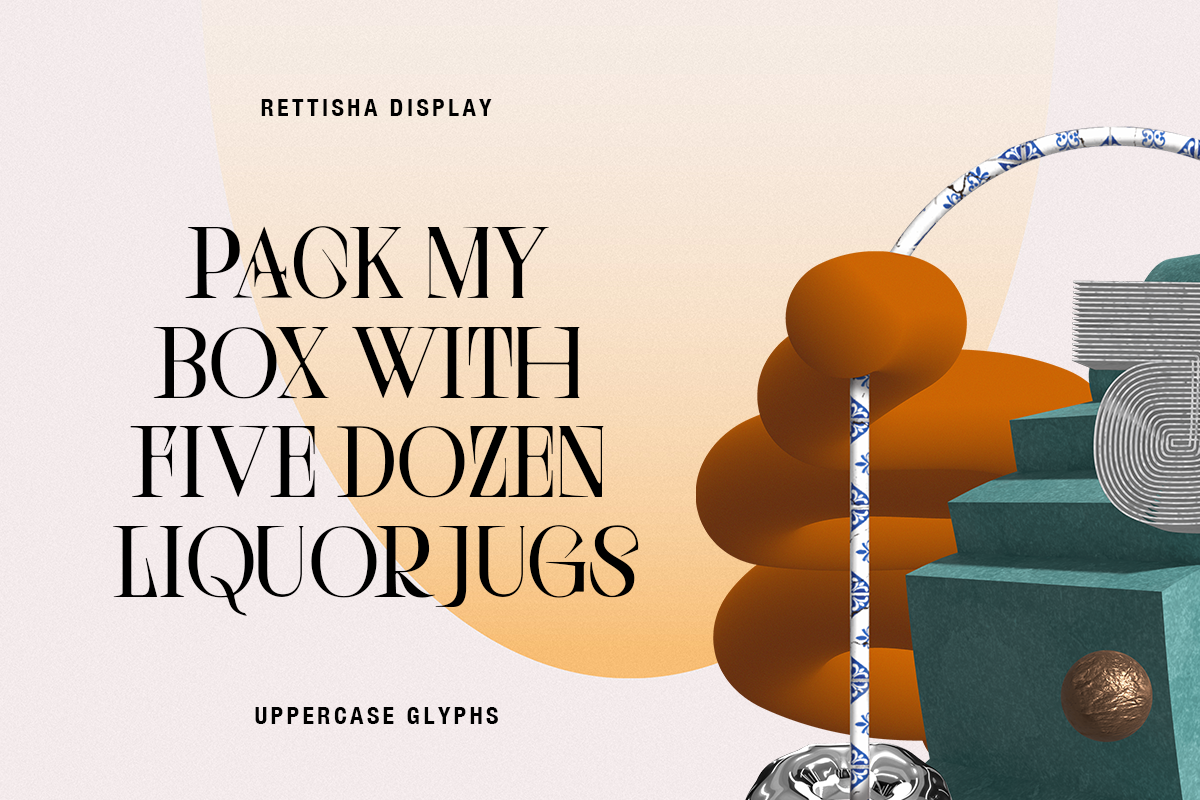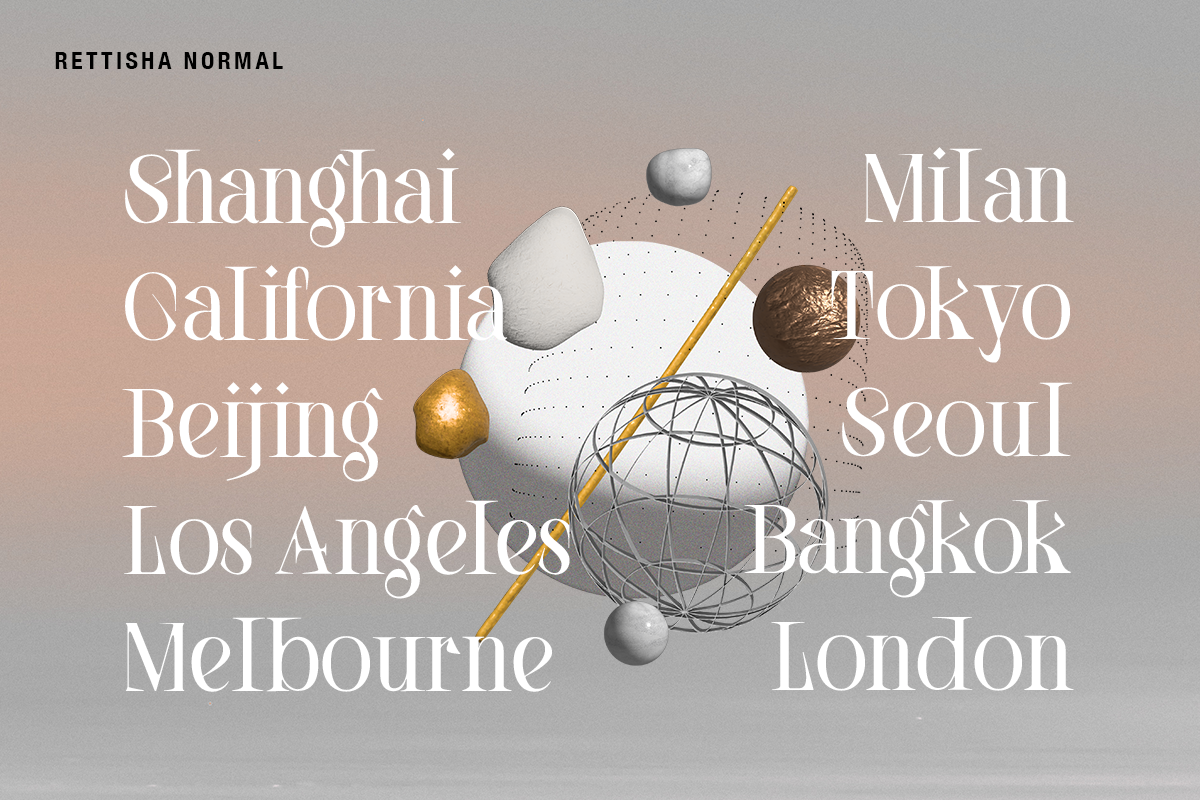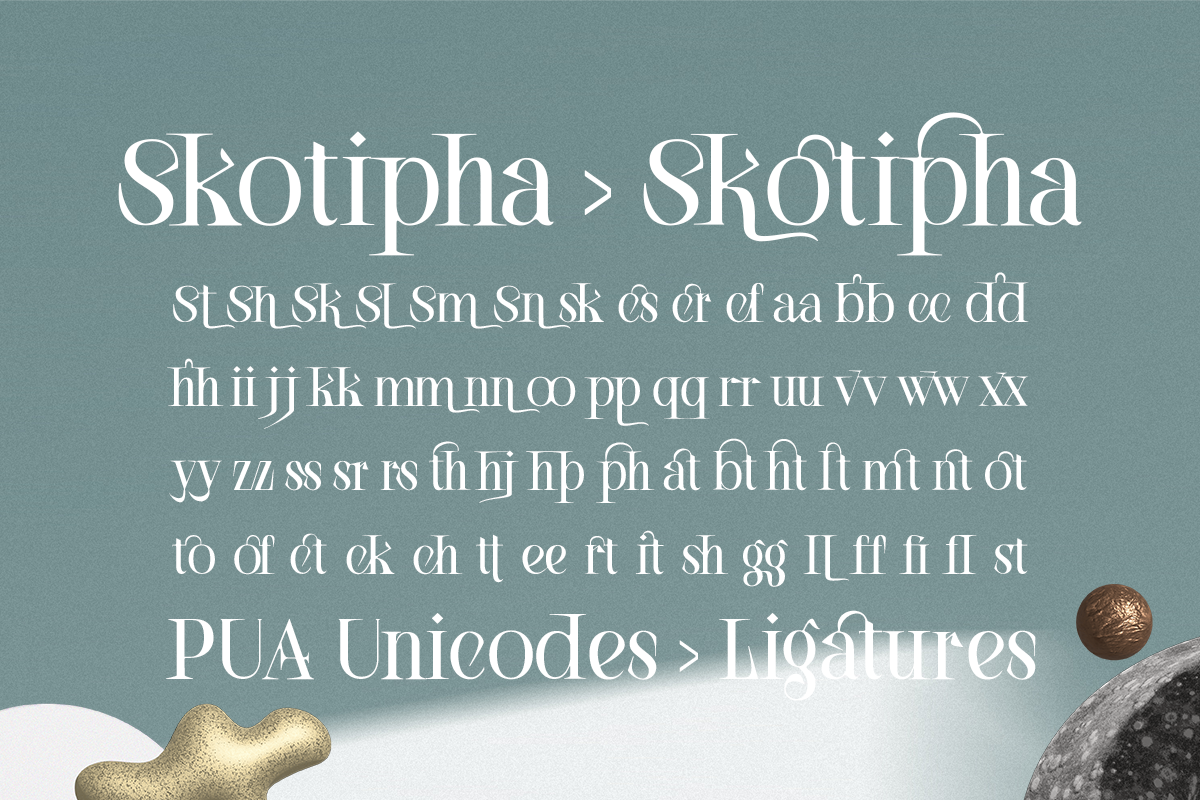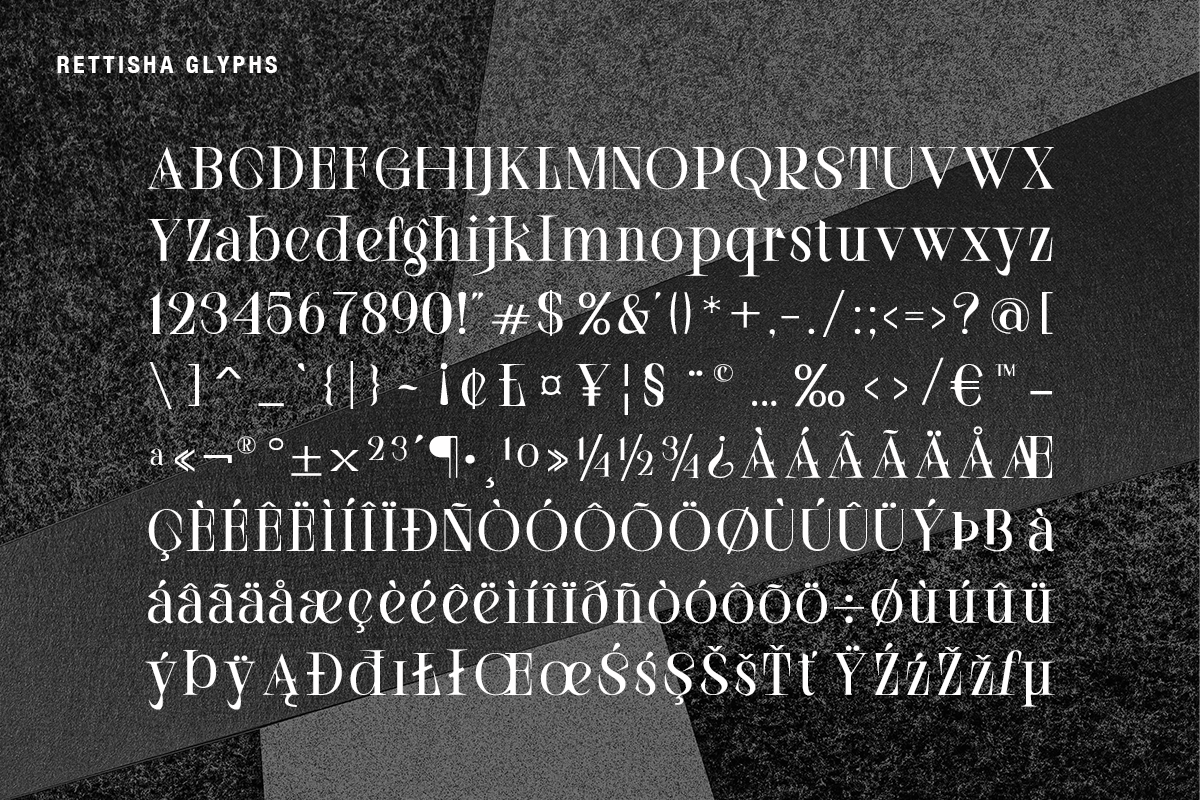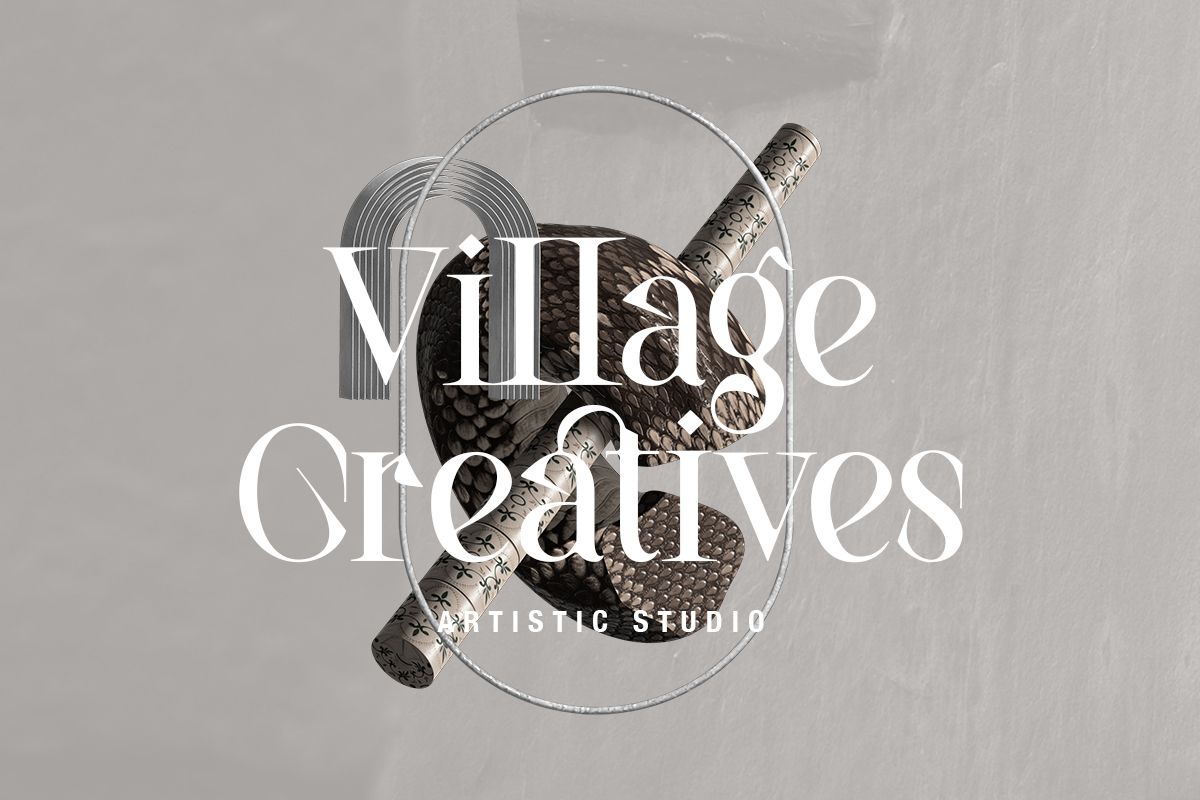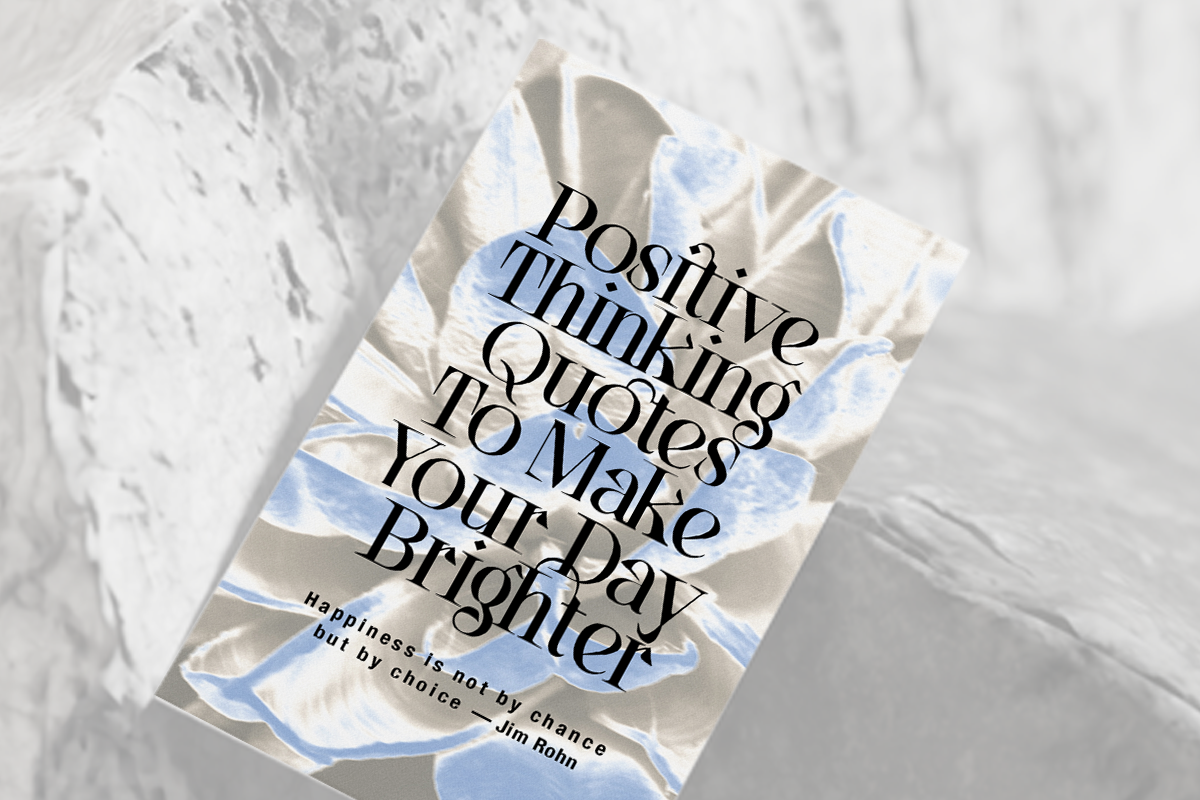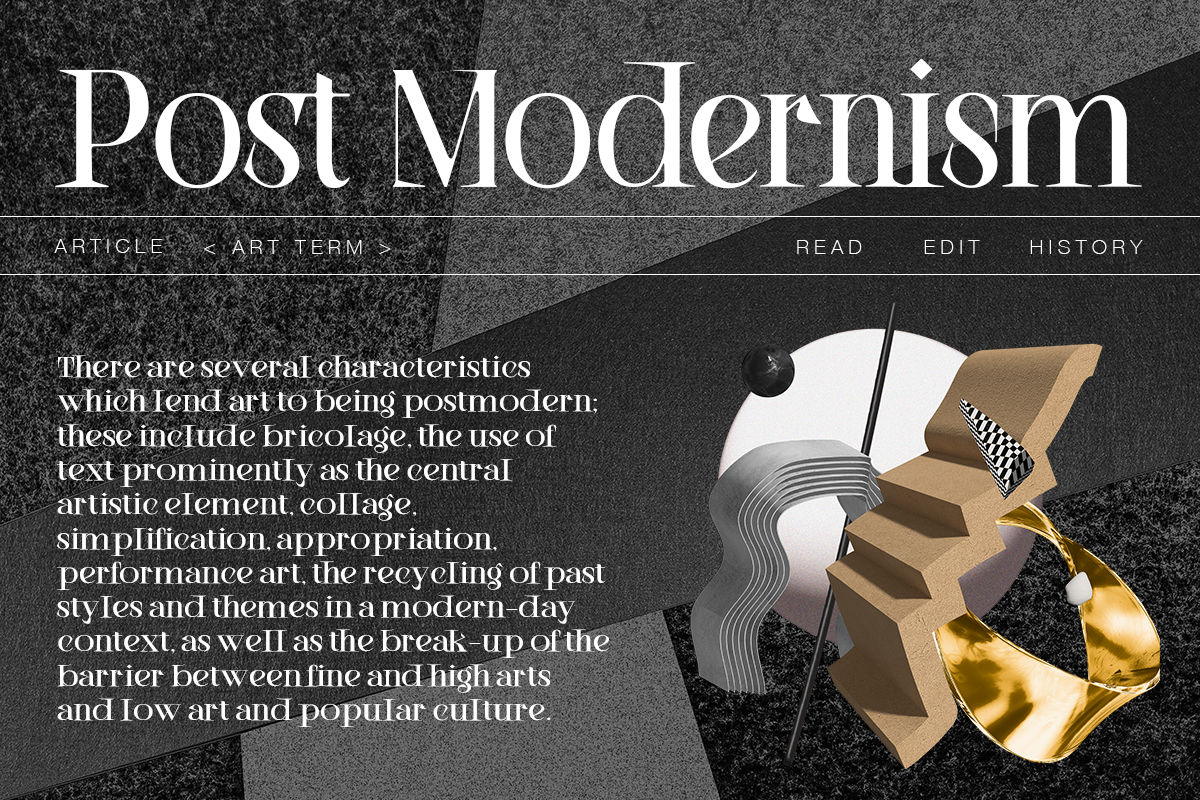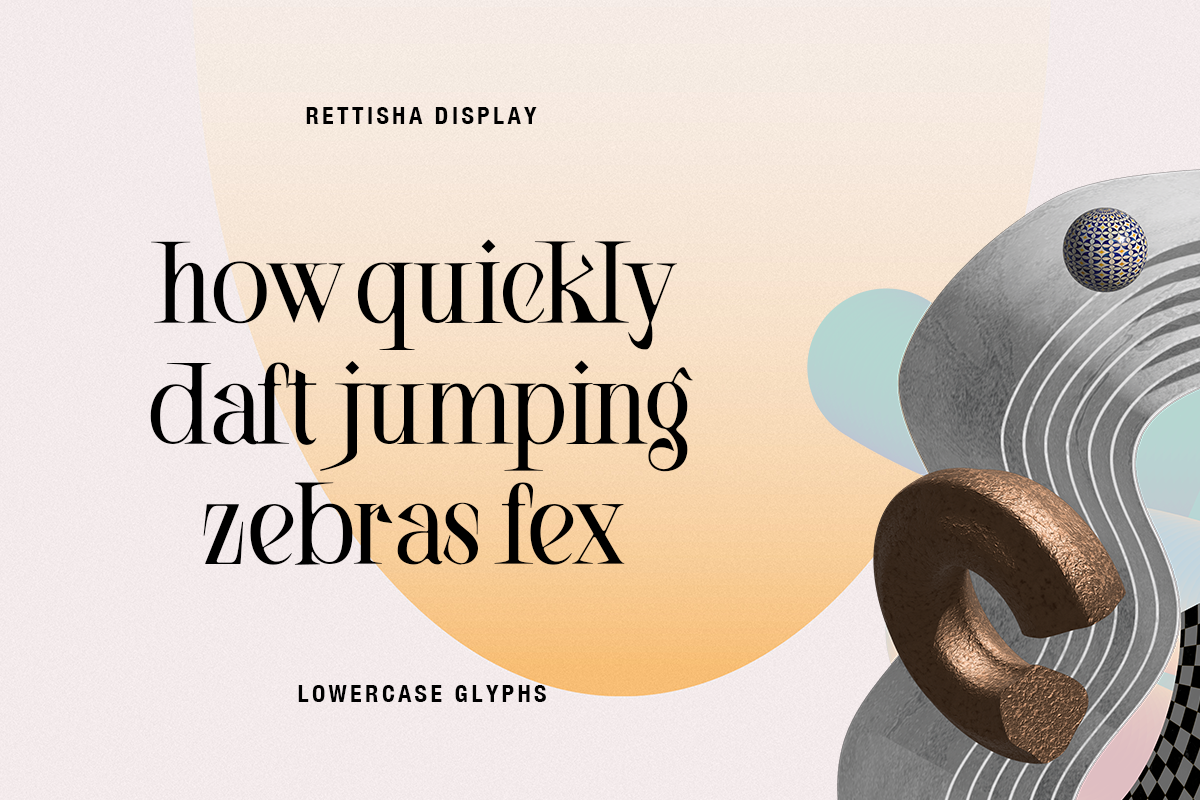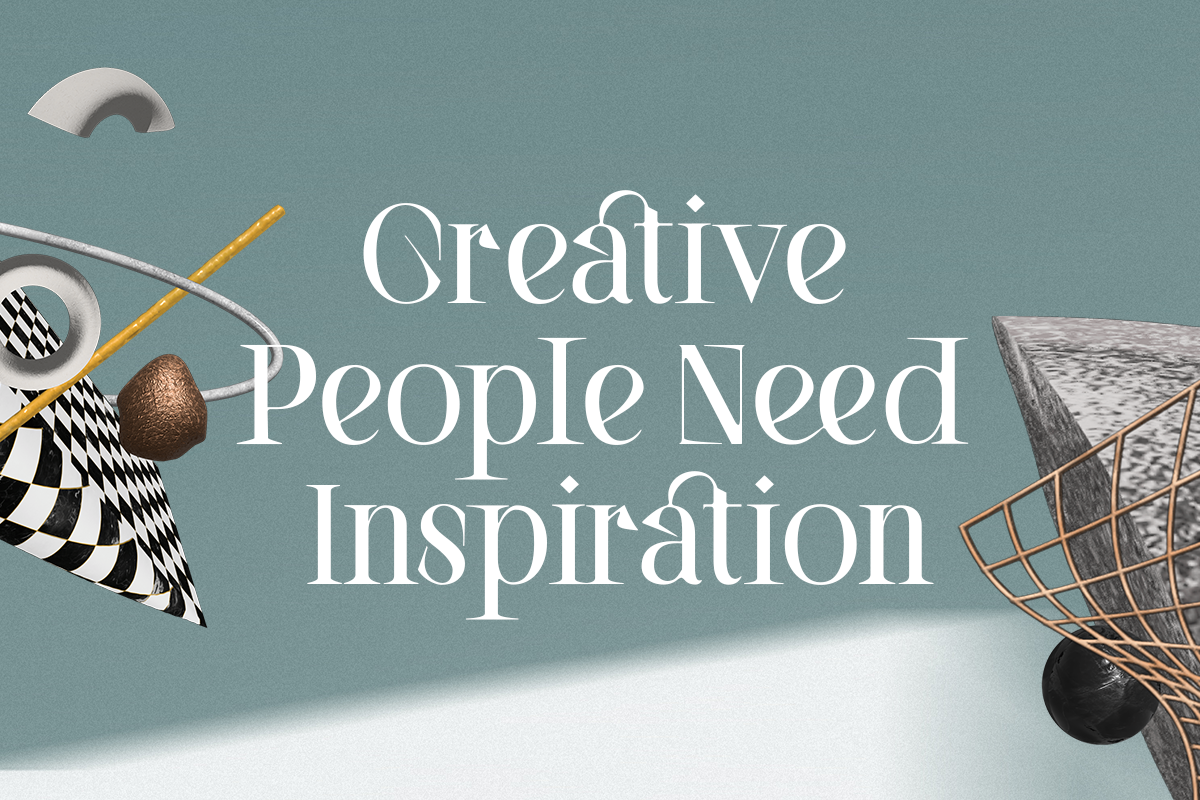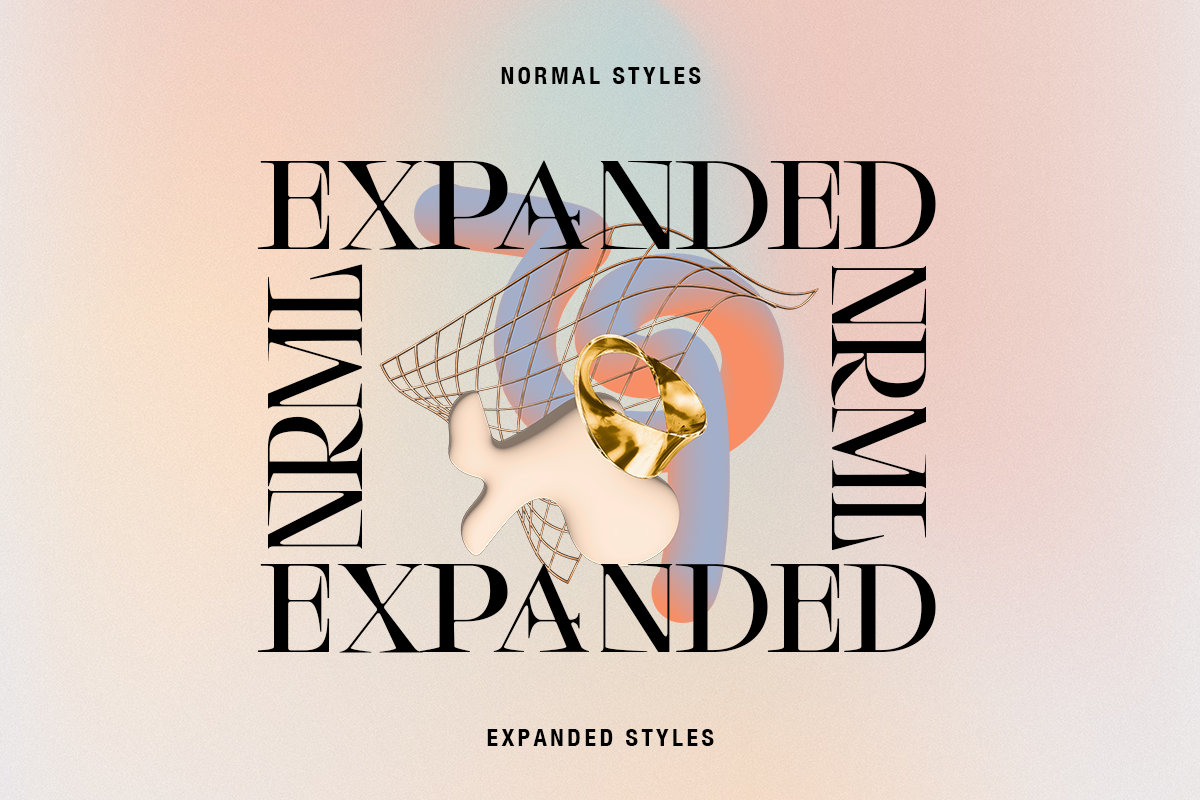
Rettisha Display
Rettisha Display is a stylish serif with beautiful ligatures. Available in two styles: Normal and Expanded fonts. Designed with clean and high contrast. Add interest with adding beautiful ligatures to make your typography truly unique. Perfect for anything your creativity. To access the Opentype Ligatures you will need software that supports Opentype features in fonts and also PUA unicodes support for other software.
Language Support : Danish, English, Finnish, French, German, German (Switzerland), Norwegian Bokmål, Norwegian Nynorsk, Portuguese, Spanish, Swedish, Swiss German.